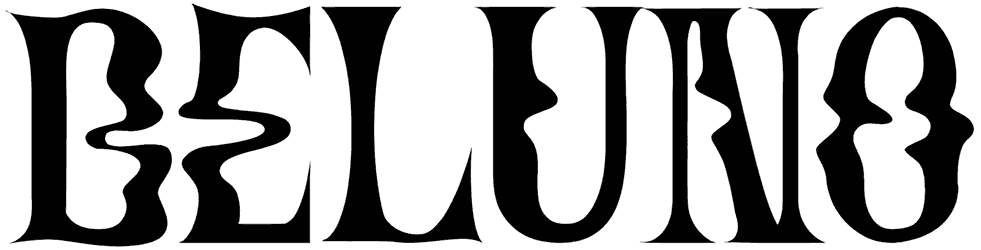
Beluno Font
What if you were a water fairy, able to write everything you want on the surface of rivers with your divine magic? That’s how you’re gonna feel when you’re working with Beluno, another cool item from our wave collection on RB.
And because we’re used to seeing the reflection of the moon on the water with the same look, your words are bound to feel spiritual and mysterious with this psychedelic font in your puzzle boxes, books, and anything like that.